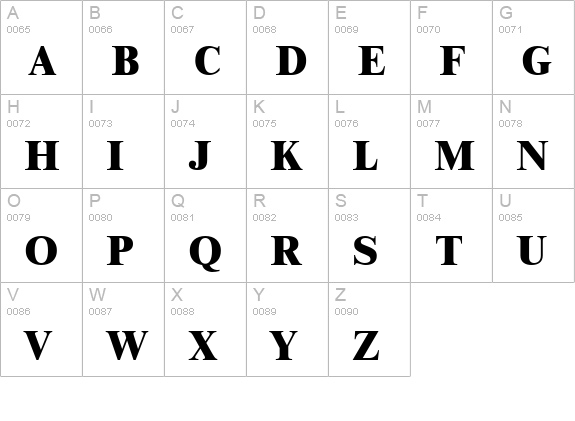
Greco Black SSi Extra Bold is a maximum-weight, dramatic variant in the Greco typeface family \xE2\x80\x94 well suited to maximum-impact headlines, posters, and packaging.
Greco Black SSi Extra Bold font is a striking and powerful typeface that exudes confidence and modernity. Its bold and sharp letterforms make a statement, perfect for headlines, titles, and branding projects that demand attention. The strong contrast between thick and thin strokes gives this font a dynamic and impactful presence on the page. What's even better is that Greco Black SSi Extra Bold font is available for free download at FontsMarket.com. This means you can easily access and use this impressive typeface for your design projects without any cost. Whether you're working on print materials, digital graphics, or web design, Greco Black SSi Extra Bold font will elevate your work with its bold and contemporary aesthetic. Download it today and make a bold statement with your typography.